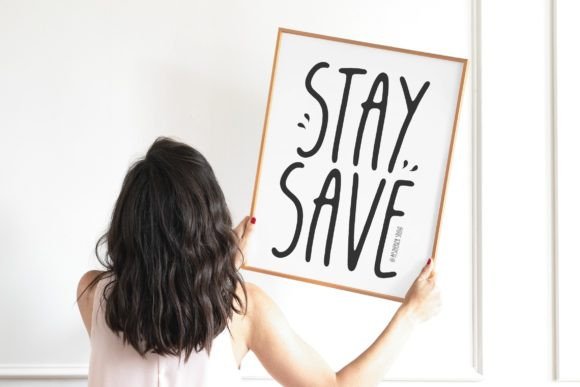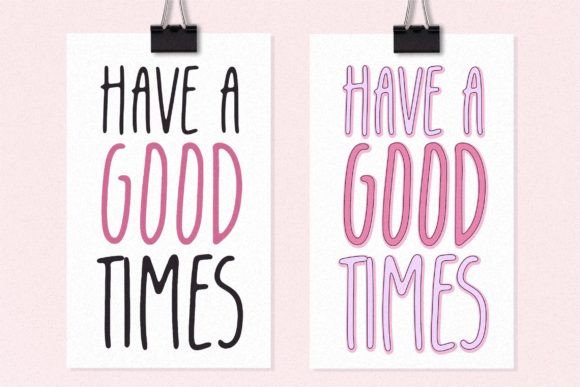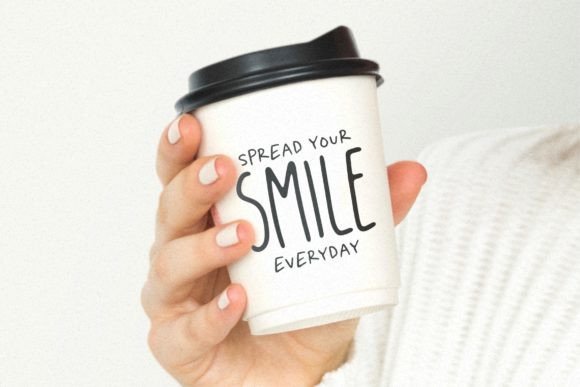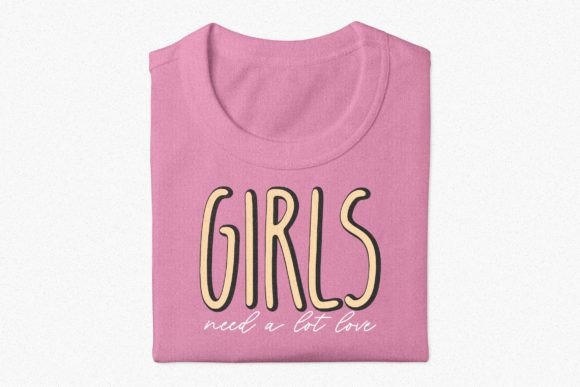
Babydance Font
About Babydance Font
Proudly Present, Babydance
Babydance is perfect for product packaging, branding project, magazines, social media, weddings, or just used to express words above the background.